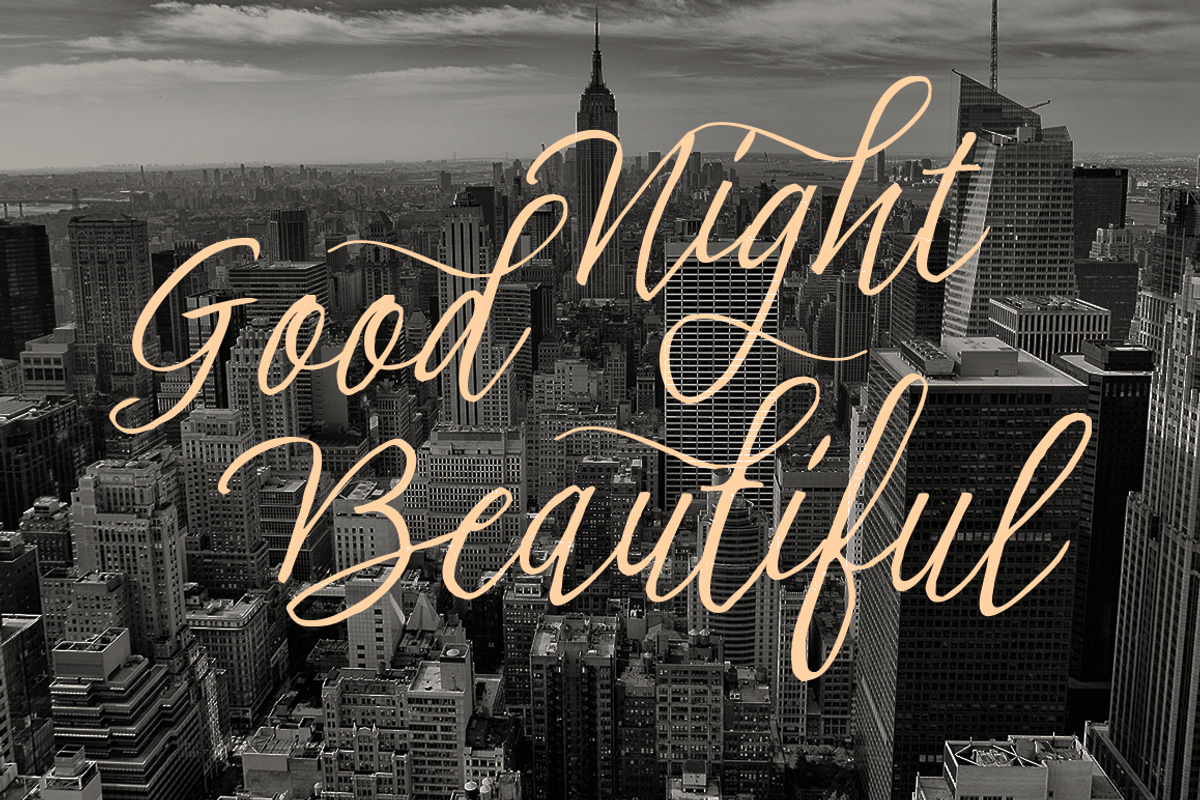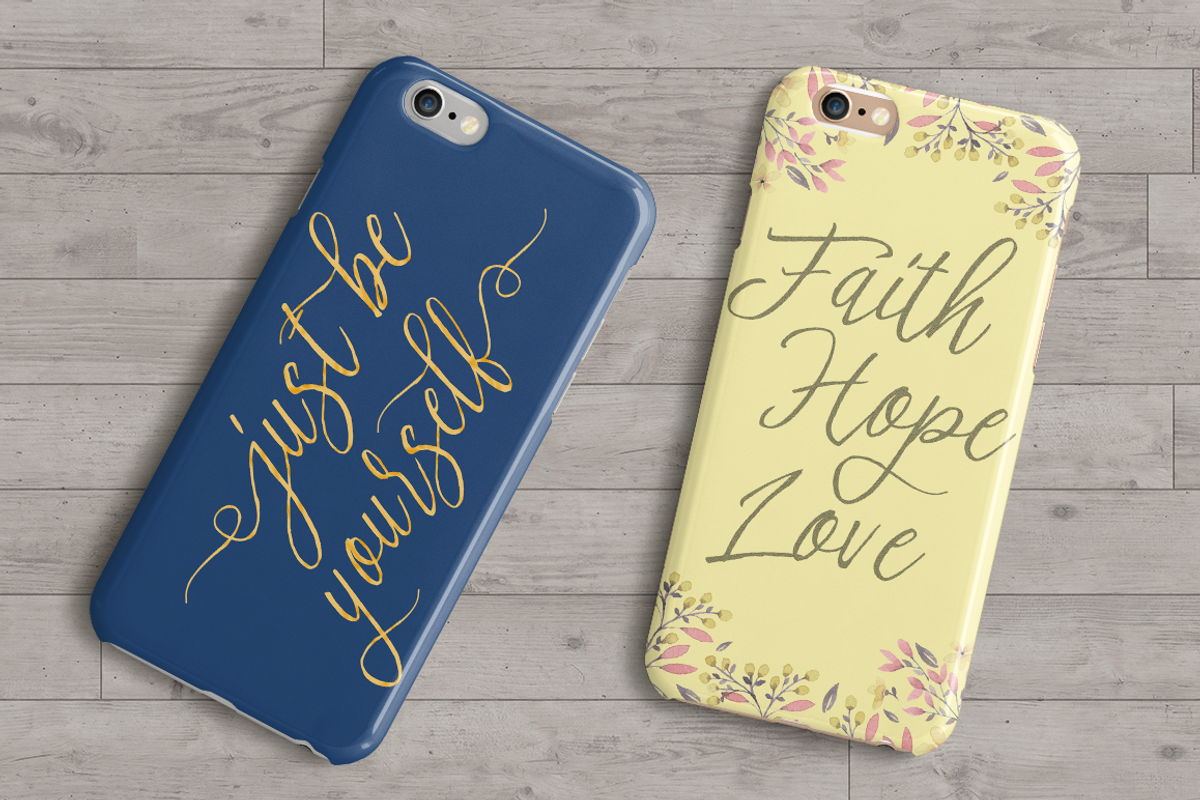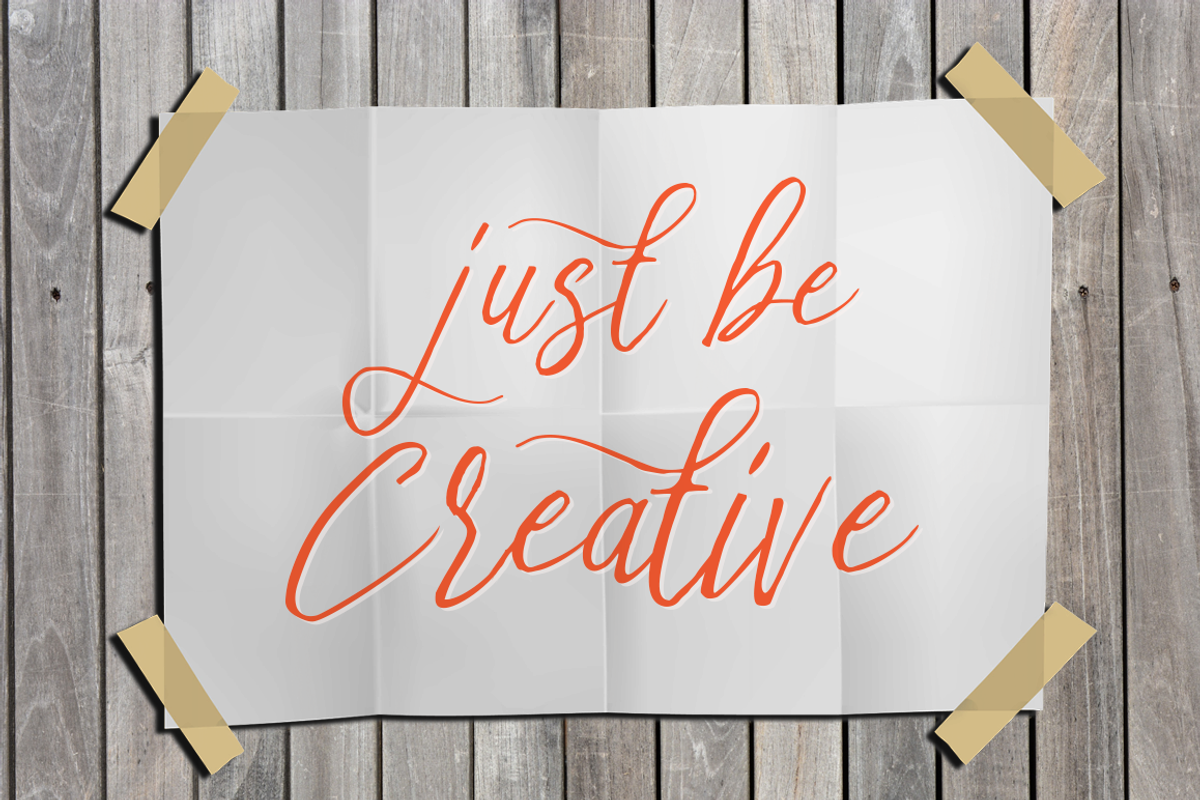
Stefhanie Typeface
Stefhanie Typeface by QueenType is a font selected for branding, posters, packaging, typography.
- Alternate character contain with opentype features.
- Stylistic alternates, Ligature and more.
- Mix and match the alternate characters to add an attractive message to your design.
Why Stefhanie Typeface is worth a look
Stefhanie Typeface by QueenType fits naturally into Branding, posters, packaging, typography.